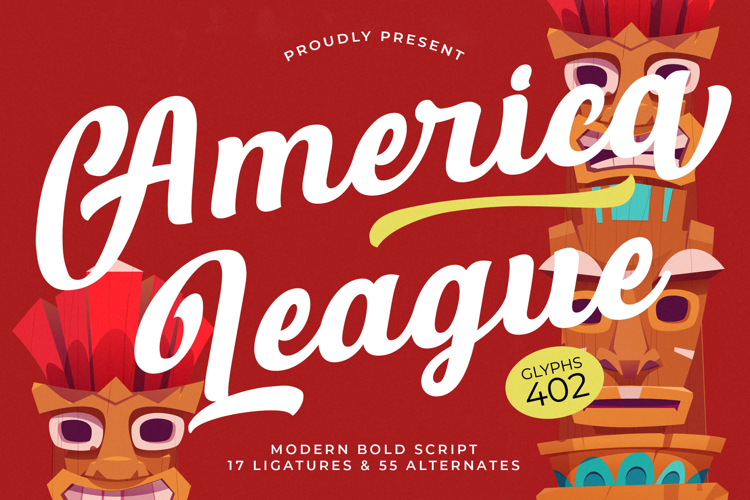
America League - Modern Bold Script Font
Elevate your design projects with the captivating charm of America League - Modern Bold Script Font. This dynamic typeface merges a contemporary edge with an expressive script, delivering a powerful visual statement. Its distinctive thick strokes and fluid connections create an undeniable presence, ensuring your message is both legible and memorable. It’s perfect for an impactful typography impression, blending modern aesthetic with classic appeal.
Unleash unparalleled creative freedom with the rich features packed into America League - Modern Bold Script Font. Boasting an impressive 402 glyphs, including 17 carefully crafted ligatures and 55 unique alternates, this font allows for extensive customization. Achieve a truly hand-lettered authenticity and seamless flow in your designs, offering endless possibilities to personalize text and infuse projects with genuine character.
Expand your global reach effortlessly, as America League - Modern Bold Script Font is engineered for worldwide appeal. With its extensive multilingual support, America League - Modern Bold Script Font adapts seamlessly across global markets, making it incredibly versatile for international projects. Ensure your brand resonates universally, maintaining consistency and clarity across diverse linguistic landscapes.